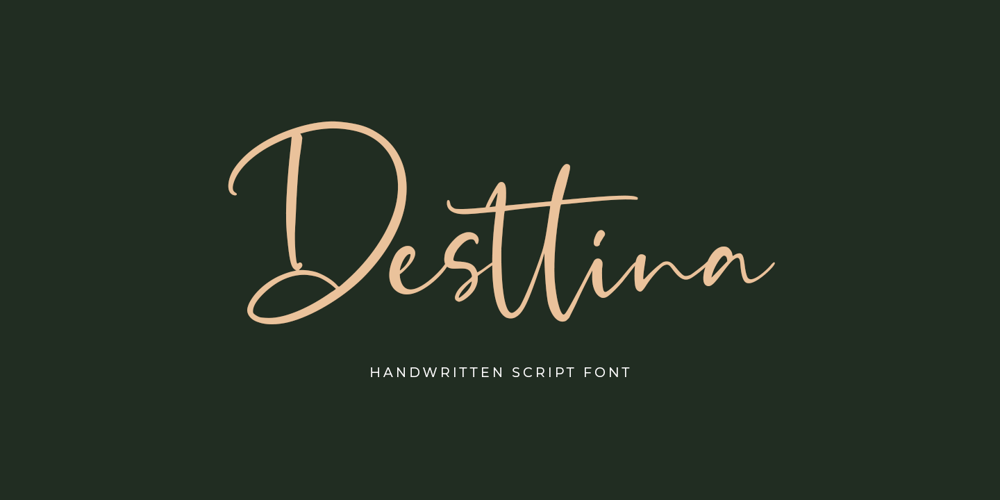
Desttina
Desttina font
Desttina Font Family was designed by Awan Setiawan and published by Awanstudio. Desttina contains 1 styles and family package options. Desttina is a beautiful handwritten font with an amazing feel. It will add a smart charm to any design project!